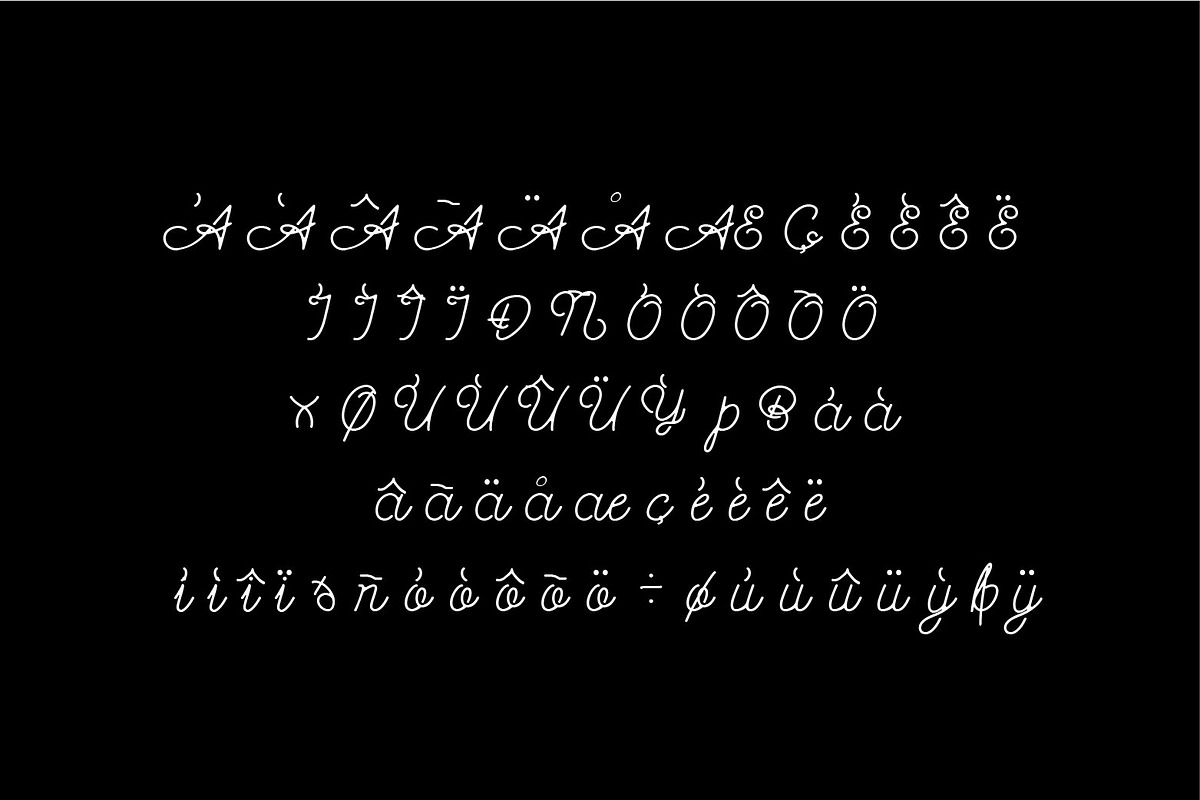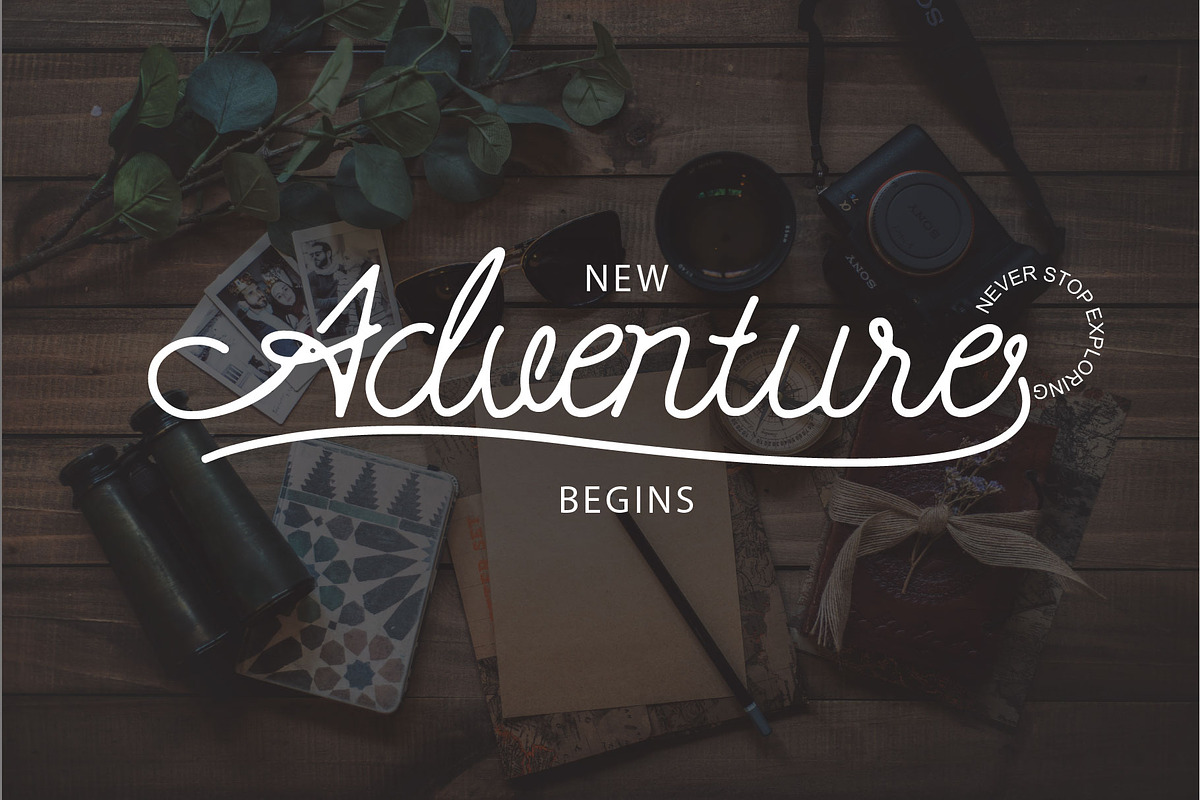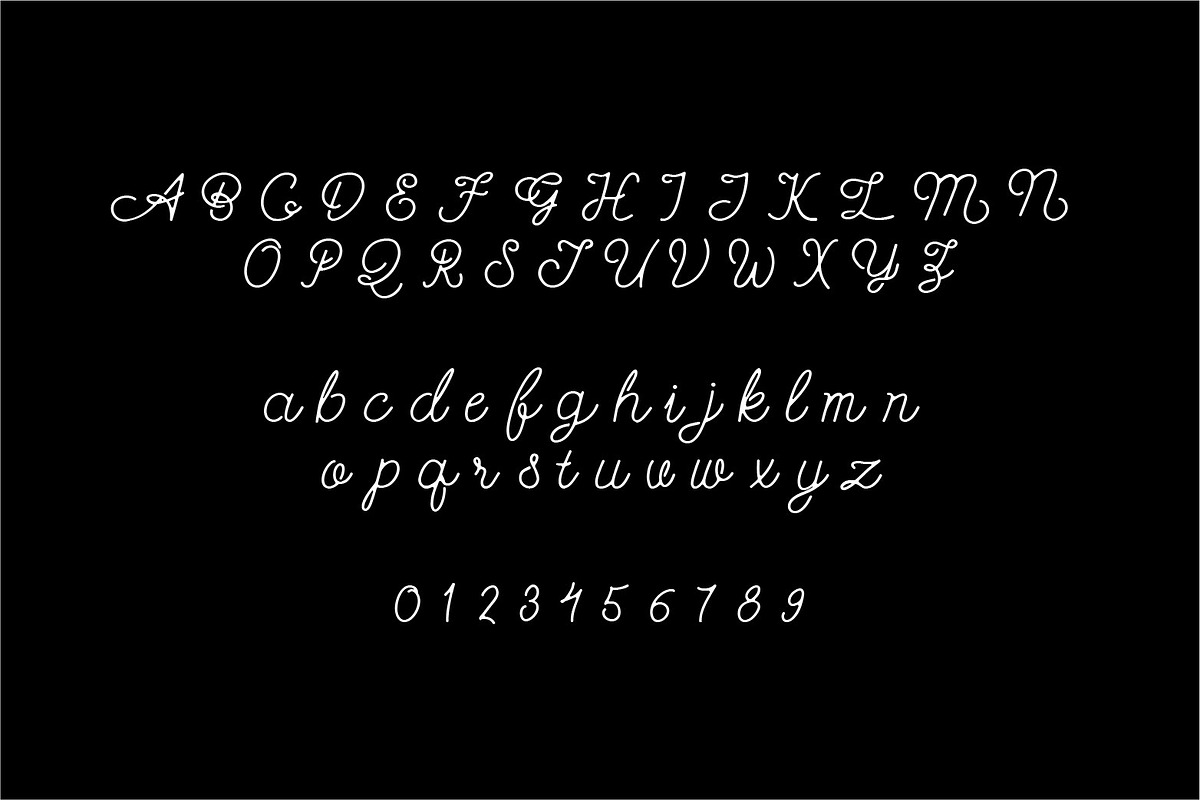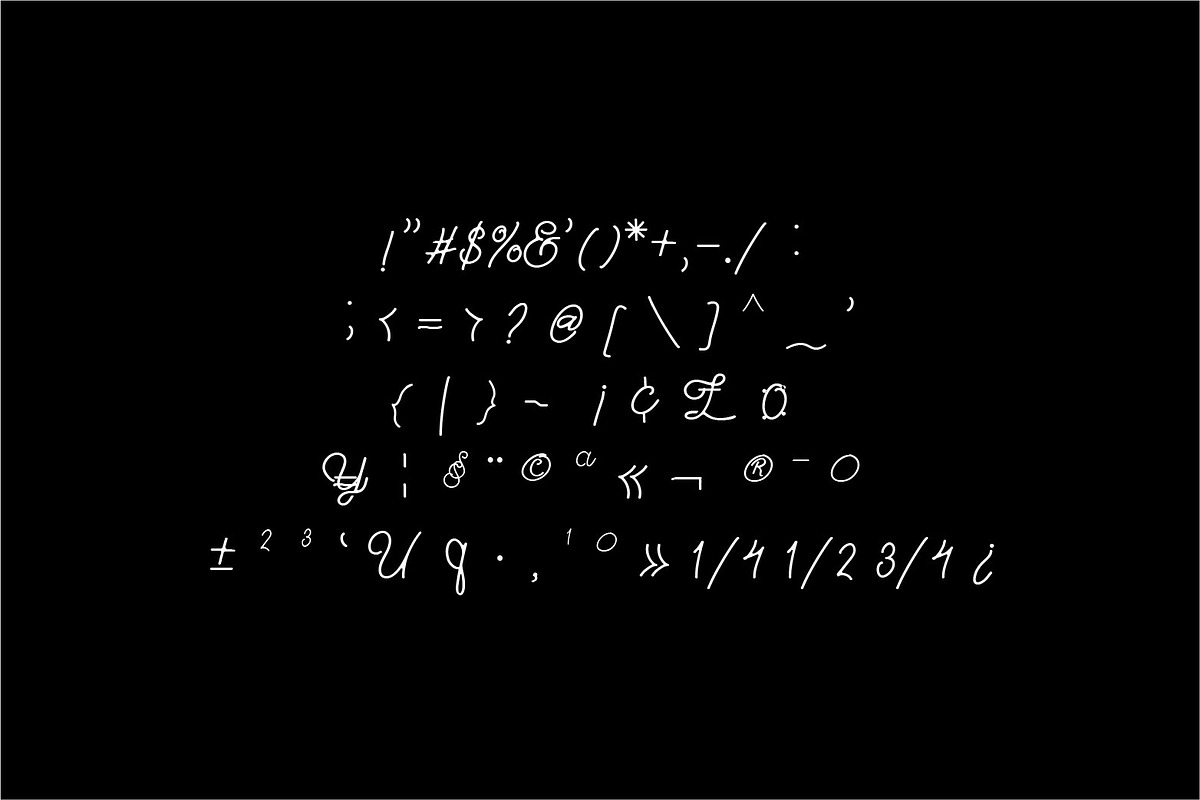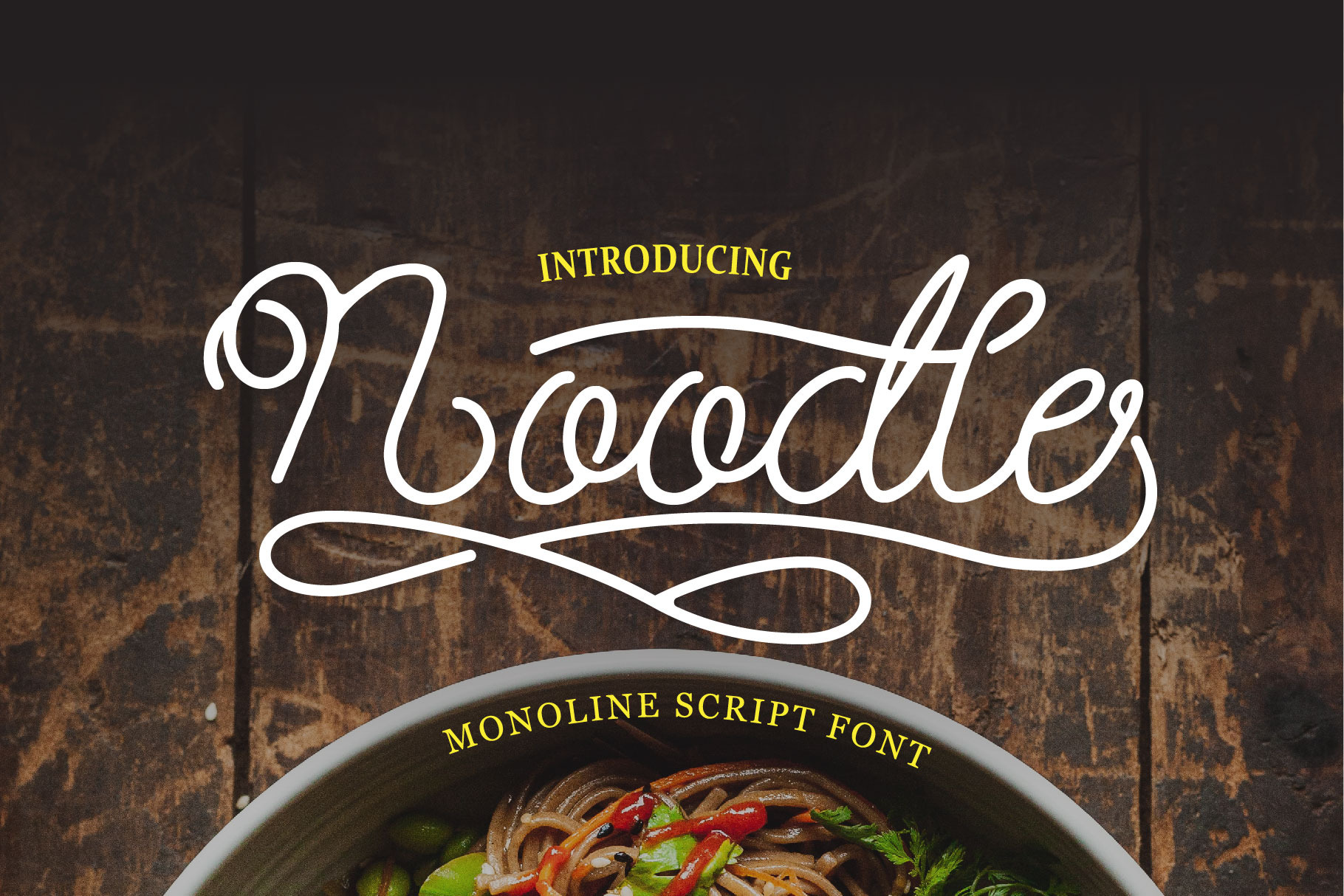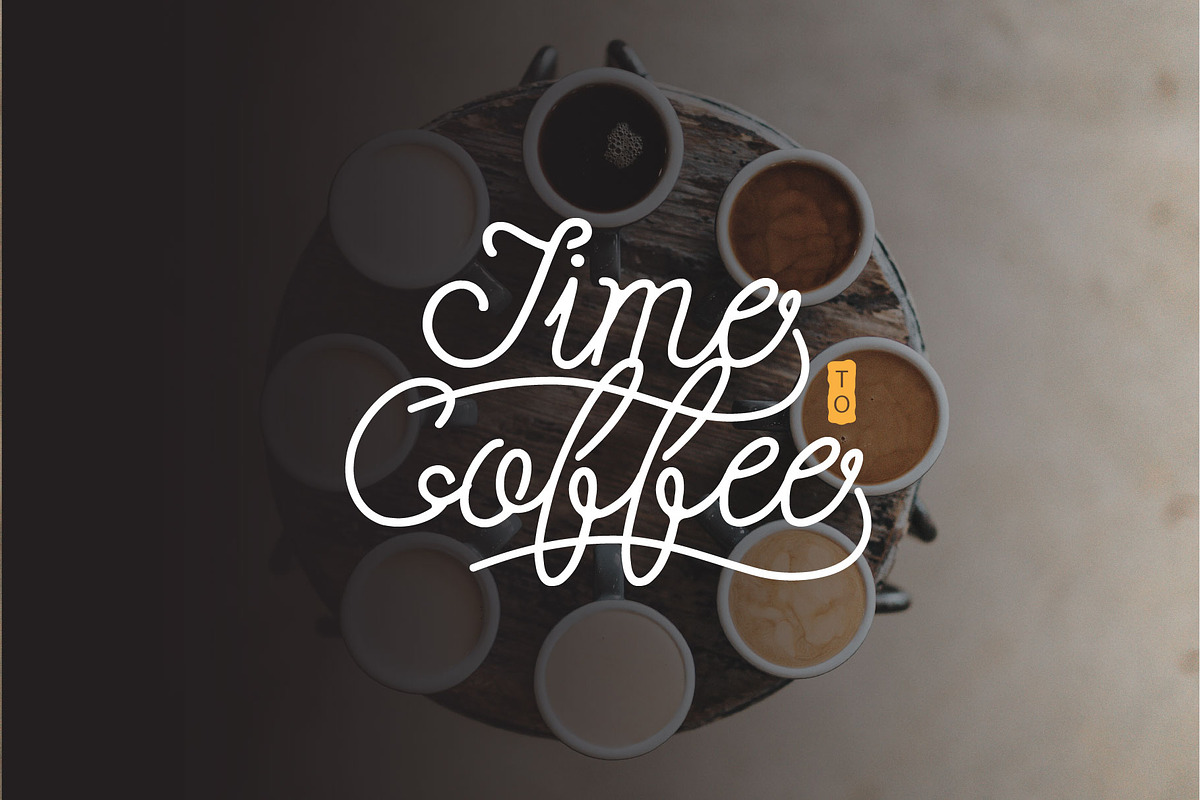
Noodle monoline script font
Noodle monoline script, Script is modern calligraphy script font, every single letters has been carefully crafted to make your text looks beautiful. With modern script style this font will perfect for many different project, example: invitations, greeting cards, posters, name card, quotes, blog header, branding, logo, fashion, apparel, letter, stationery and more!